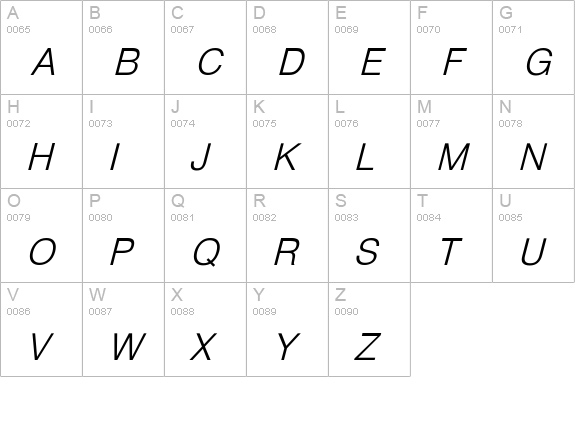
PartridgeObl-Li Font Details
Introducing the captivating PartridgeObl-Li font, a true masterpiece that seamlessly blends elegance and modernity. This font embodies a unique charm, making it perfect for a wide range of creative projects. With its beautifully crafted letterforms, PartridgeObl-Li exudes a sense of sophistication and refinement. Featuring a stylishly oblique design, this font adds a touch of dynamism and energy to any text. Its sleek and slender strokes create a visual harmony that is simply mesmerizing. Whether used in headlines, logos, branding materials, or editorial designs, PartridgeObl-Li stands out as a true gem, effortlessly capturing attention and leaving a lasting impression. One of the most remarkable aspects of PartridgeObl-Li is that it is freely available to download at FontsMarket.com. This means that you can enjoy the impeccable craftsmanship of this font without any limitations or restrictions. Embrace the freedom to create with this extraordinary typeface, and let your imagination soar to new heights. With its extensive character set, PartridgeObl-Li offers versatility and flexibility, allowing you to effortlessly express your ideas and bring your vision to life. Whether you're designing a magazine layout, crafting a stunning poster, or creating a unique website, this font will elevate your work to new levels of excellence. PartridgeObl-Li is not just a font; it's a creative tool that empowers you to make a statement. Its timeless appeal and impeccable quality make it a go-to choice for designers, typographers, and creatives alike. So go ahead, explore the endless possibilities that PartridgeObl-Li has to offer, and embark on a journey of artistic expression like never before. Download PartridgeObl-Li for free at FontsMarket.com and unlock a world of creativity. Discover the allure of this font and let it become an integral part of your design arsenal. Experience the joy and satisfaction of working with a font that is both visually striking and effortlessly accessible. PartridgeObl-Li is here to inspire and empower you to create something truly extraordinary.